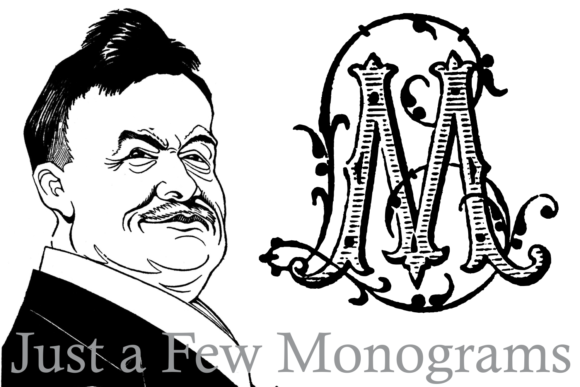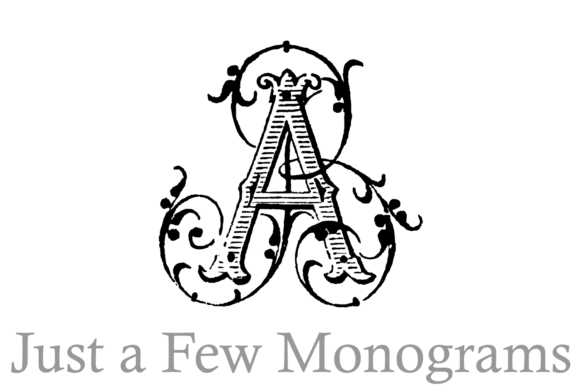
Introduction to Just a Few Monograms Font
Do you ever find yourself stuck in the creative process, staring blankly at a blank page, wondering how to bring your vision to life? It’s a feeling we’ve all experienced at some point, but what if I told you there’s a secret to unlocking your full creative potential? It starts with the right design resource – a high-quality font that speaks to your style and sets the tone for your project.
That’s where the Just a Few Monograms Font comes in, a timeless classic that’s perfect for adding a touch of elegance to your designs. With its transparent background and versatile design, it’s a free download that’s sure to elevate your creative project to the next level. Whether you’re working on a branding campaign, a wedding invitation, or a social media graphic, this font is a valuable addition to your design arsenal.
Key Features of Just a Few Monograms Font
- High-quality design resource perfect for creative projects, offering a unique and elegant touch.
- Features a transparent background, making it easy to place and customize within your design project.
- Includes a variety of monogram designs, catering to diverse creative needs and preferences.
- Supports a range of languages, ensuring compatibility with global design projects.
- Available in 5 different font sizes (12-24pt), allowing for flexibility and customization in your design.
- Designed with a high resolution (300 DPI) for crisp and clear display, suitable for both digital and print media.
Honest Review: Just a Few Monograms Font
One thing that really works well with this font is its versatility. It’s perfect for a wide range of creative projects, from wedding invitations to business branding. The font’s elegant and sophisticated design makes it a great choice for any project that requires a touch of sophistication.
The font’s transparent background is also a huge advantage. It allows designers to easily overlay text on top of images or other design elements, making it a great choice for multi-layered designs.
What Works Well:✨
- Perfect for a wide range of creative projects
Limitations:⚠️
- Font size limitations may affect readability on smaller designs
- No bold or italic variations available
Overall, I’m really impressed with the Just a Few Monograms Font. Its high-quality design and versatility make it a great addition to any design resource library. I would definitely recommend it to fellow designers looking for a reliable and stylish font for their creative projects.
Just a Few Monograms Font is perfect for:
- Product labels and packaging
Getting the Most Out of It
Yes, Just a Few Monograms Font has a transparent background, making it easy to use on any background or design element. This feature allows you to create a seamless and professional-looking design, perfect for modern and sleek creative projects.